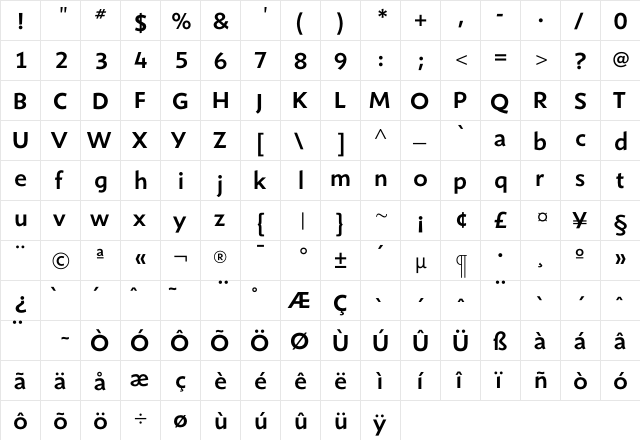
ShinnMedium Regular
Design Context for ShinnMedium Typeface
ShinnMedium offers clean, dependable letterforms without strong stylistic allegiance, making it a practical choice for designers who need flexibility.